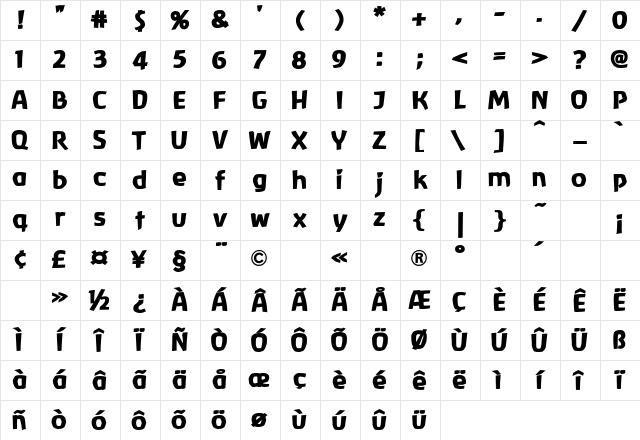
Baar  Antropos Display Regular
Design Context for Baar Antropos Display
Baar Antropos Display is built around its visual character rather than neutral utility - its distinctive forms are designed to make an impression at display sizes.
Suited to editorial headers, event branding, and any context where the font itself is part of the message.
Font Pairing: Pair with a clean neutral sans-serif for body copy to let Baar Antropos Display's character lead without overwhelming the composition.
Pro Tip: Use Baar Antropos Display exclusively at display sizes - it was designed to be seen, not read at length. Let a neutral companion handle body copy.